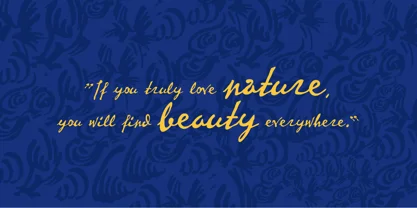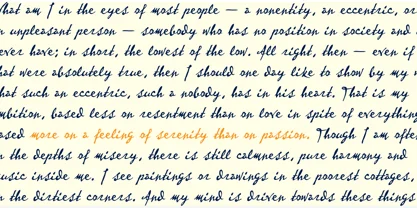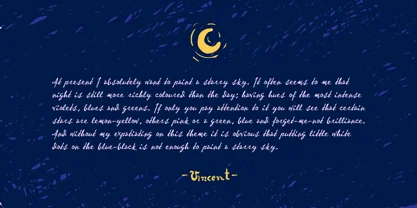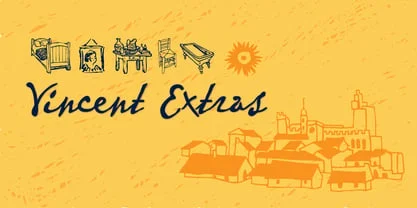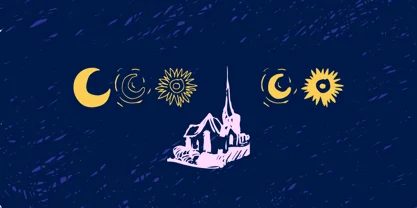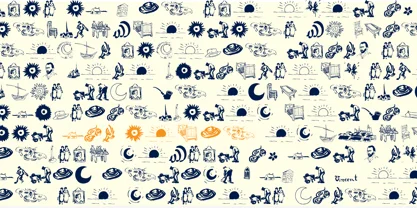
P22 Vincent Font
Few typefaces manage to balance visual harmony and precise spacing with genuine day-to-day practicality. P22 Vincent is one of them. The typeface brings a versatile sensibility to a broad range of creative disciplines, with refined proportions and careful stroke modulation that holds up whether the work is print-first or screen-first.
In practice, P22 Vincent proves particularly effective for product labels, environmental graphics, editorial layouts, annual reports, packaging design. Designers reaching for it find that the type decisions feel resolved rather than laboured — a useful quality when client timelines are tight.
The range of applications extends to social media graphics, signage systems, advertising campaigns, brand identity systems. That breadth is deliberate: the proportions and spacing were stress-tested across a wide range of mock briefs before the typeface was finalised.
Art directors commissioning type-led campaigns find P22 Vincent a reliable choice for projects that demand both personality and restraint. The design avoids the self-conscious quirkiness that dates quickly, settling instead for considered distinctiveness that holds up over time.